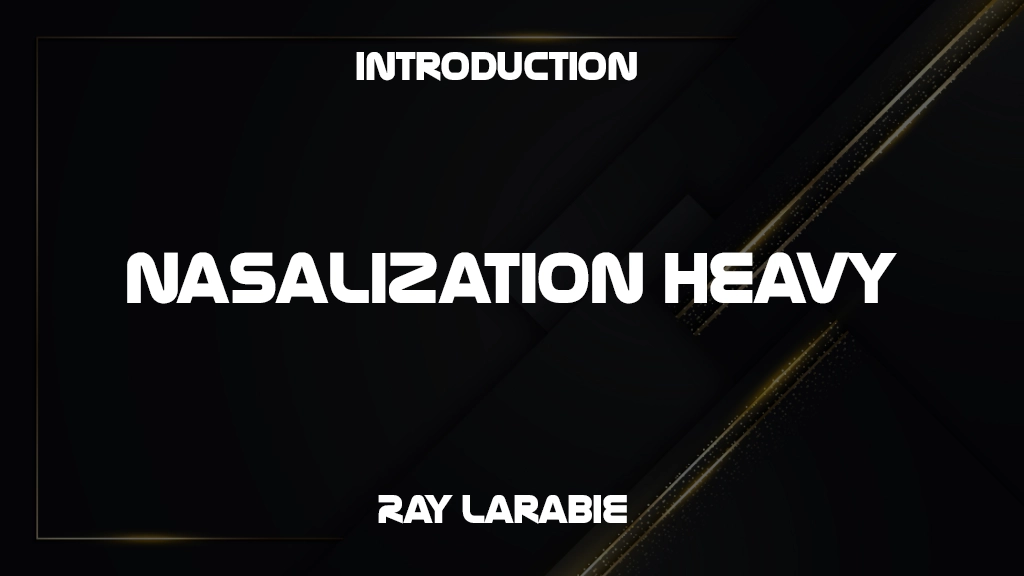
Nasalization Heavy is a fun font that can be used for a variety of designs.It is a Regular font, meaning that it has no italics or other special features.It was designed by Ray Larabie and is free to use for personal projects.